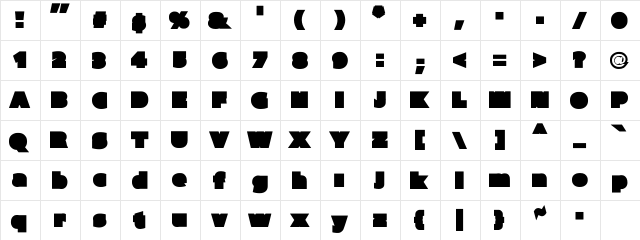
Parafuse UltraBlack
Design Context for Parafuse Typeface
Parafuse offers clean, dependable letterforms without strong stylistic allegiance, making it a practical choice for designers who need flexibility.